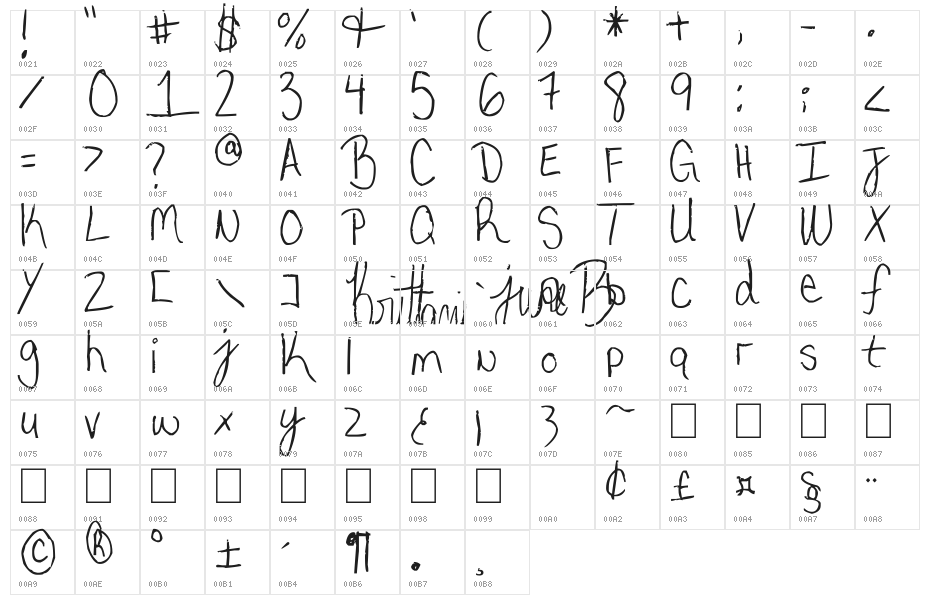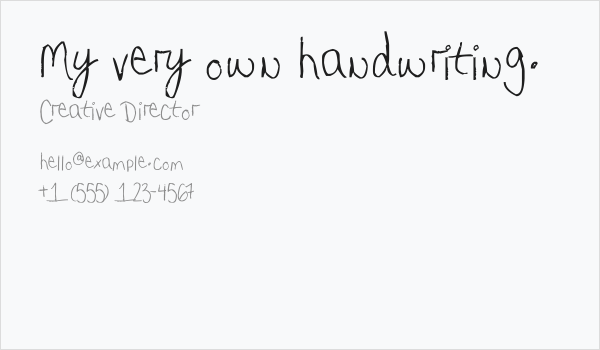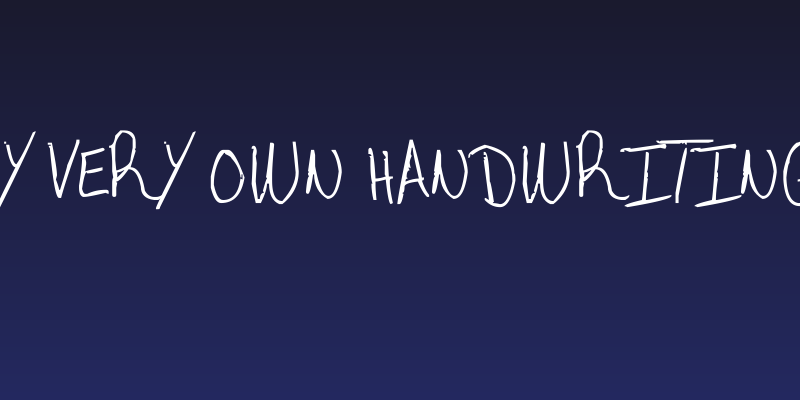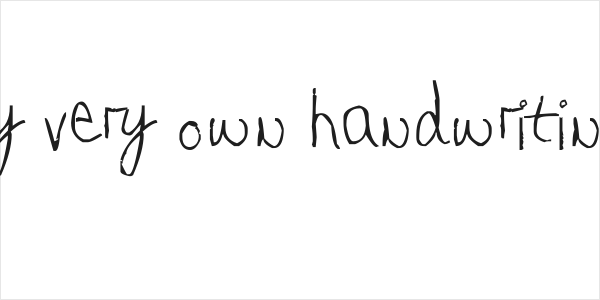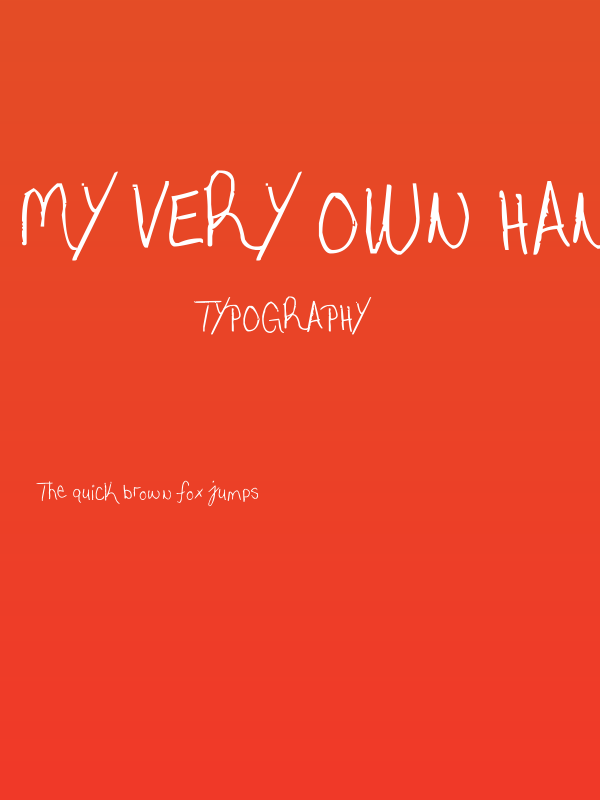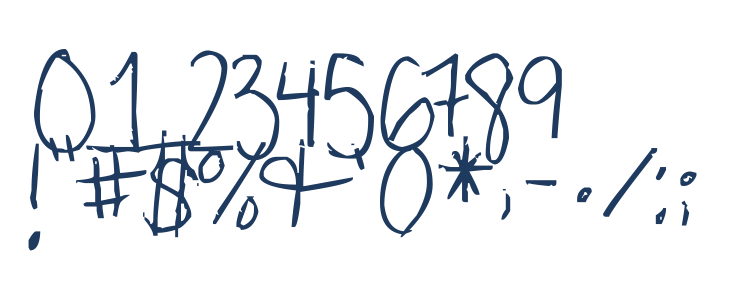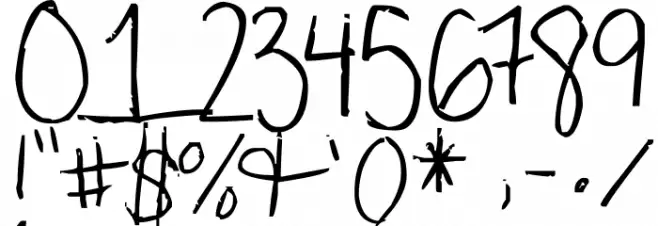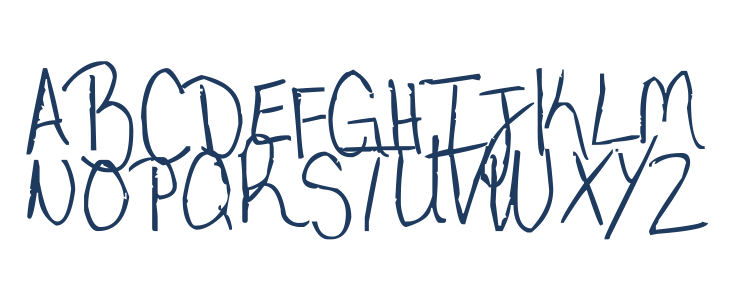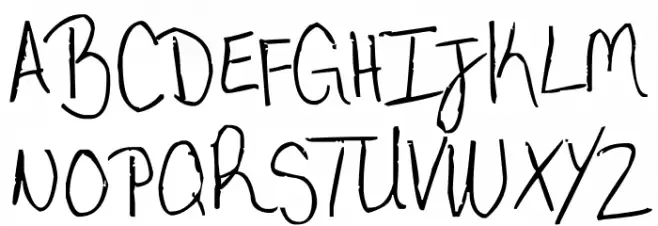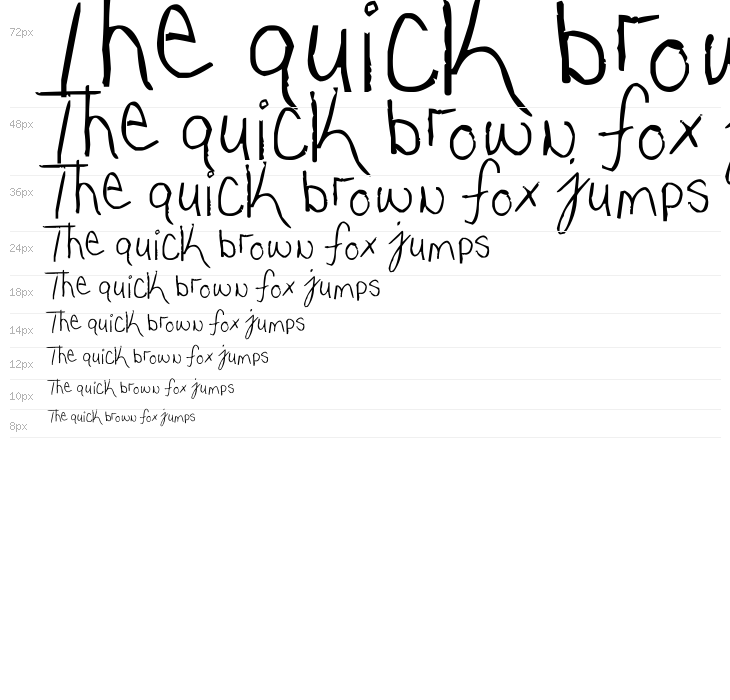
My very own handwriting. Font
My very own handwriting. Description
A casual, playful handwritten font with irregular strokes and variable letter heights, mimicking natural handwriting with a personal touch. The lines are uneven and organic, giving it an informal and approachable feel.
| Overall Style | Casual, Playful, Personal |
| Use Case | Personal projects, Invitations, Informal branding, Scrapbooking |
| Proposed Projects | Personal notes, greeting cards, children's books, informal posters, creative branding. |